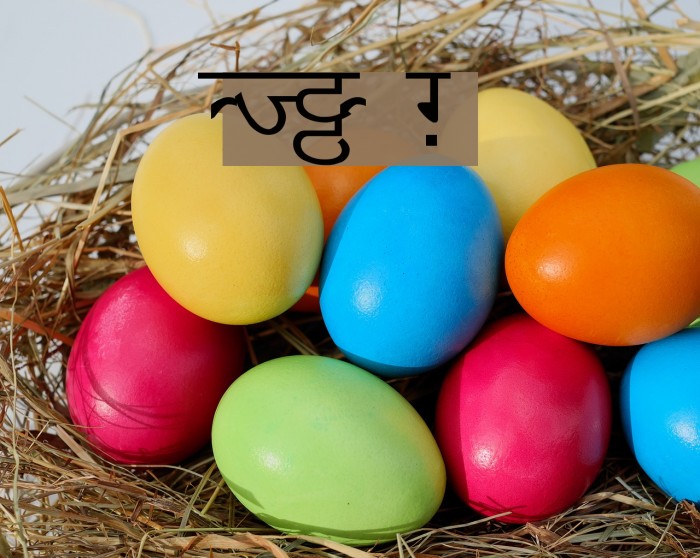
DV_Divyae Normal Font
This font features a distinctive Devanagari script with a modern twist, characterized by clean lines and a balanced structure. The characters are well-defined, with a consistent stroke width that maintains readability across different sizes. The numerals are clear and harmonize well with the script, making it suitable for both digital and print media. The special characters are thoughtfully designed to complement the overall aesthetic, ensuring a cohesive look. This font is versatile, offering a contemporary feel while respecting traditional script elements.
A modern Devanagari script with clean lines and balanced structure.
- Proposed Projects: Ideal for educational materials, digital interfaces, and cultural publications.
- Use Case: Headlines, Body text, Educational materials